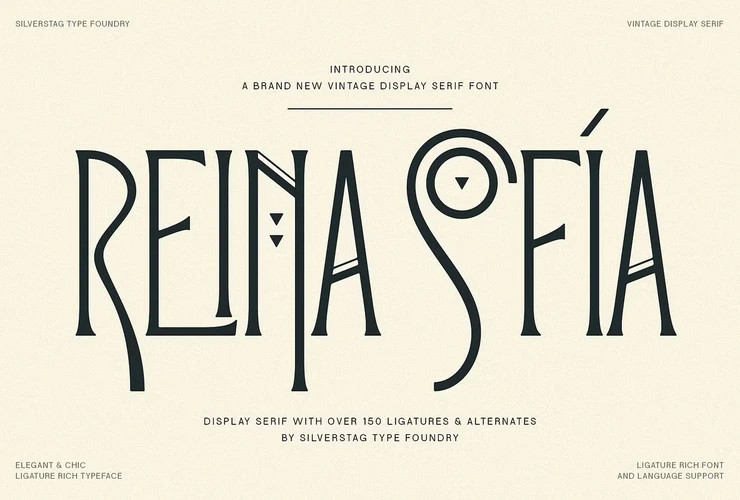
Reina Sofía: A Vintage Display Serif Font Inspired by Artistic Heritage
Reina Sofía is a vintage-inspired display serif font that exudes elegance and sophistication. Drawing inspiration from the iconic Reina Sofía Museum in Madrid, this typeface captures the essence of Art Deco and Art Nouveau, celebrating the artistic movements that shaped the early 20th century. With its meticulously crafted ligatures and alternate letters, Reina Sofía offers a world of typographic possibilities for designers seeking to evoke a bygone era of grandeur and creative expression.
The Essence of Reina Sofía
Reina Sofía is more than just a font; it is a tribute to the timeless beauty of classic art and design. Each character is intricately designed to reflect the opulence and charm of early 20th-century aesthetics. The font’s flowing lines and detailed craftsmanship make it perfect for a variety of applications, from elegant invitations to luxurious branding.
This font is ideal for projects that require a touch of vintage allure. Whether you’re designing wedding stationery, creating Art Deco-inspired posters, or crafting a sophisticated logo, Reina Sofía provides the perfect typographic voice. Its versatility extends to historical and period-themed projects, allowing you to transport your audience to another era with authentic and evocative typography.
Features and Versatility
Reina Sofía boasts over 150 ligatures and alternate letters, providing a rich palette for creative expression. This font’s extensive character set includes uppercase and lowercase letters, numerals, punctuation, and multilingual support, making it suitable for a wide range of languages and design needs. Its adaptability makes it a valuable asset for both digital and print media, ensuring that your designs maintain their elegance and impact across various platforms.
Why Choose Reina Sofía?
Vintage Elegance: Inspired by the Reina Sofía Museum’s Art Deco and Art Nouveau collections, this font brings a touch of classic sophistication to any project.
Rich Typographic Options: With over 150 ligatures and alternate letters, Reina Sofía offers endless possibilities for creative expression.
Versatile Applications: Perfect for elegant invitations, luxury branding, editorial layouts, historical projects, and more.
Authentic Feel: Captures the spirit of early 20th-century design, making your projects feel genuine and timeless.